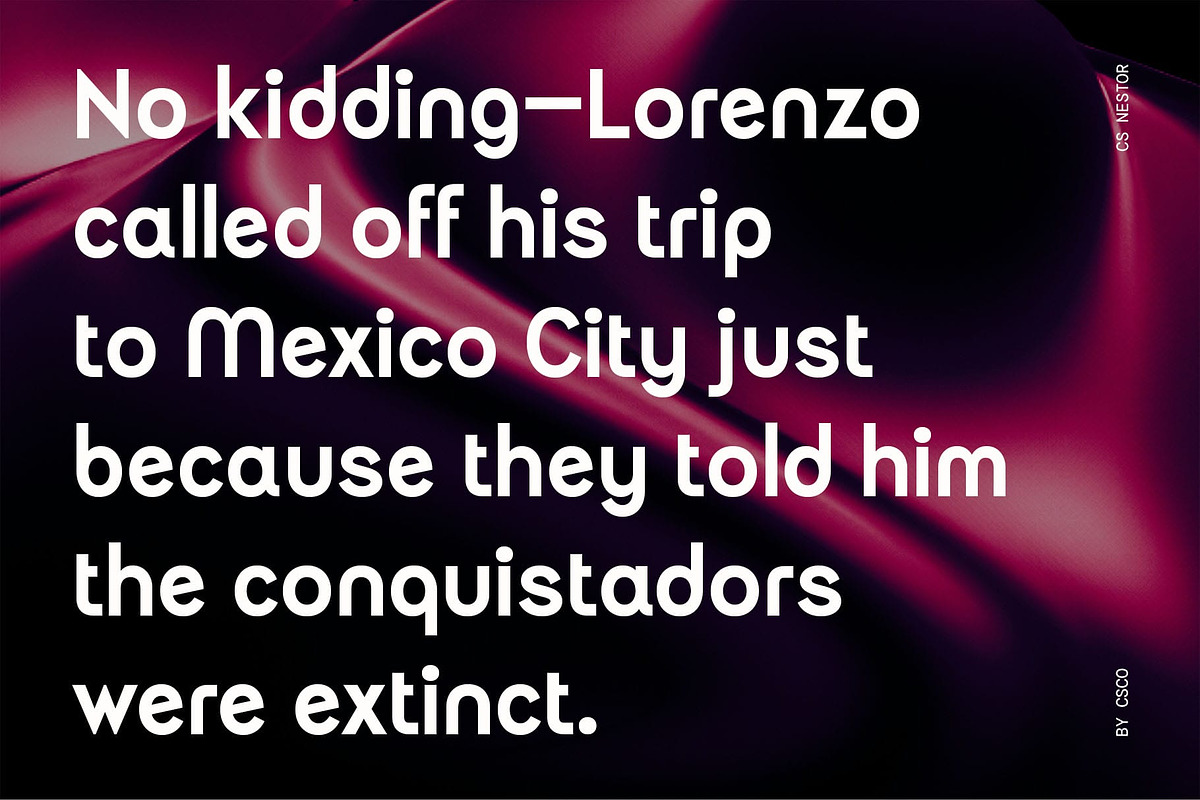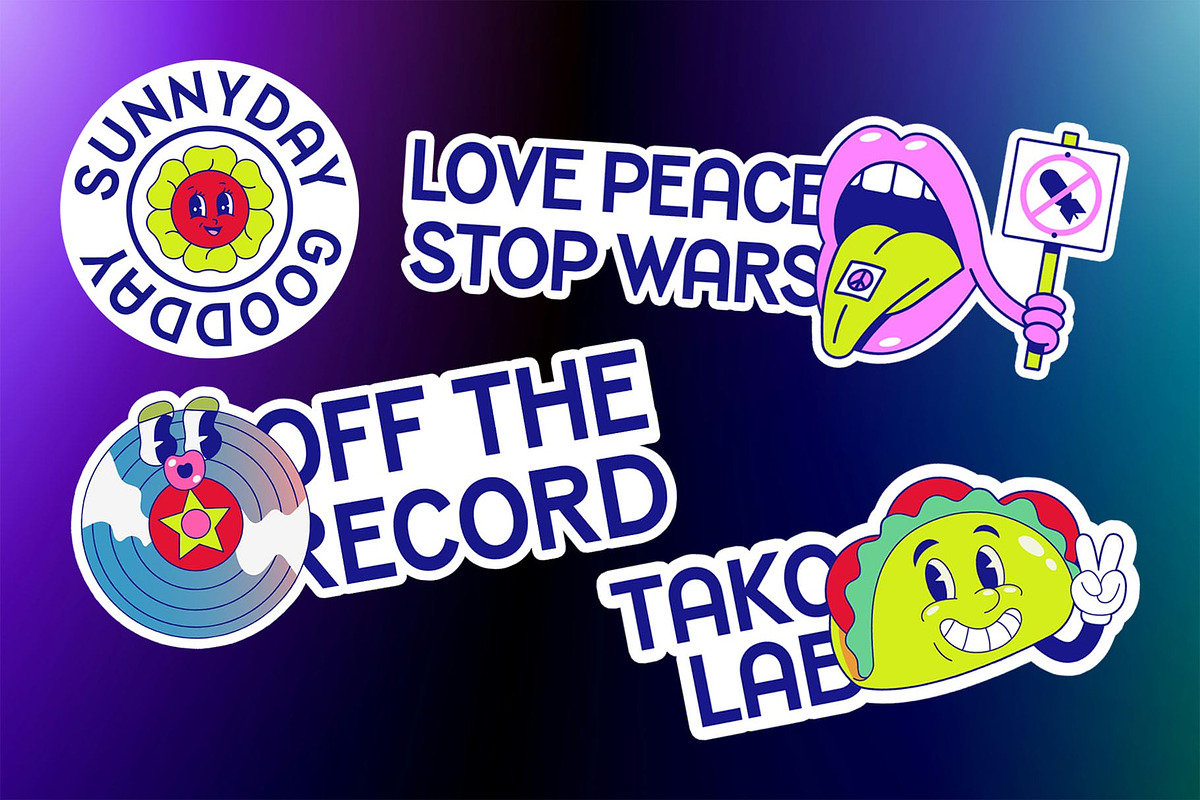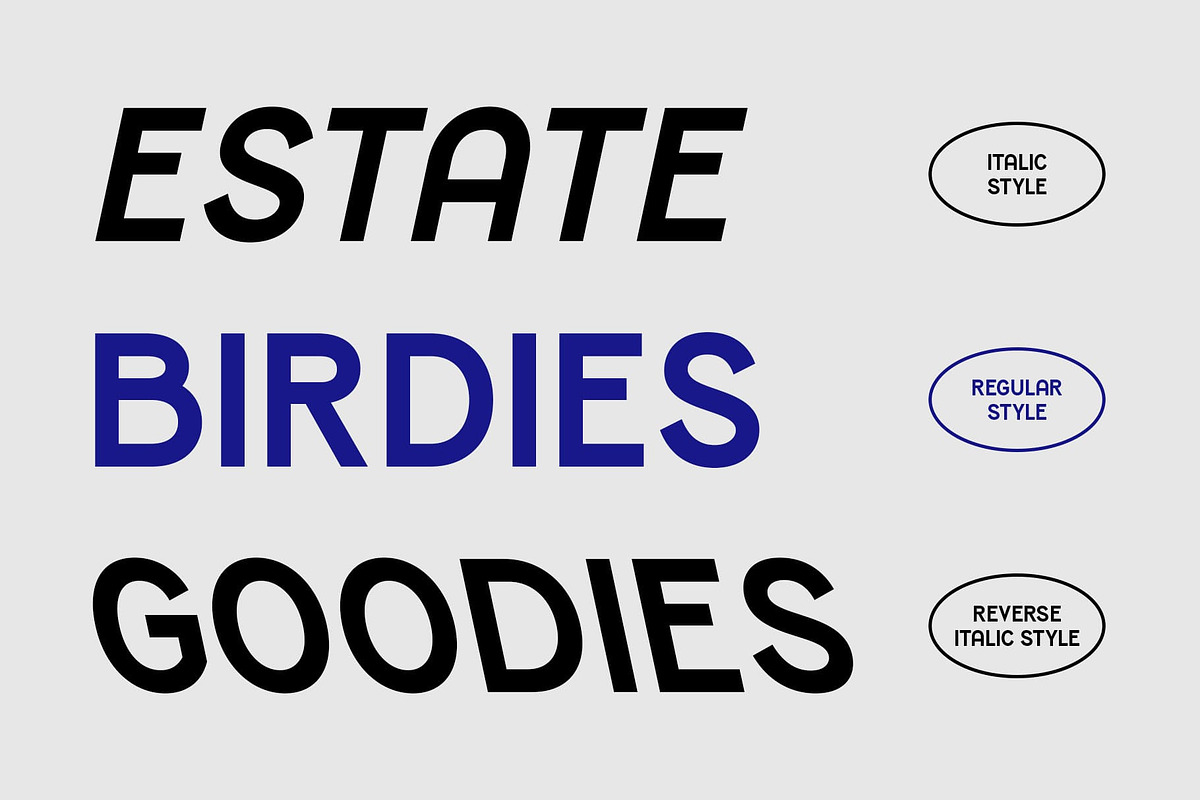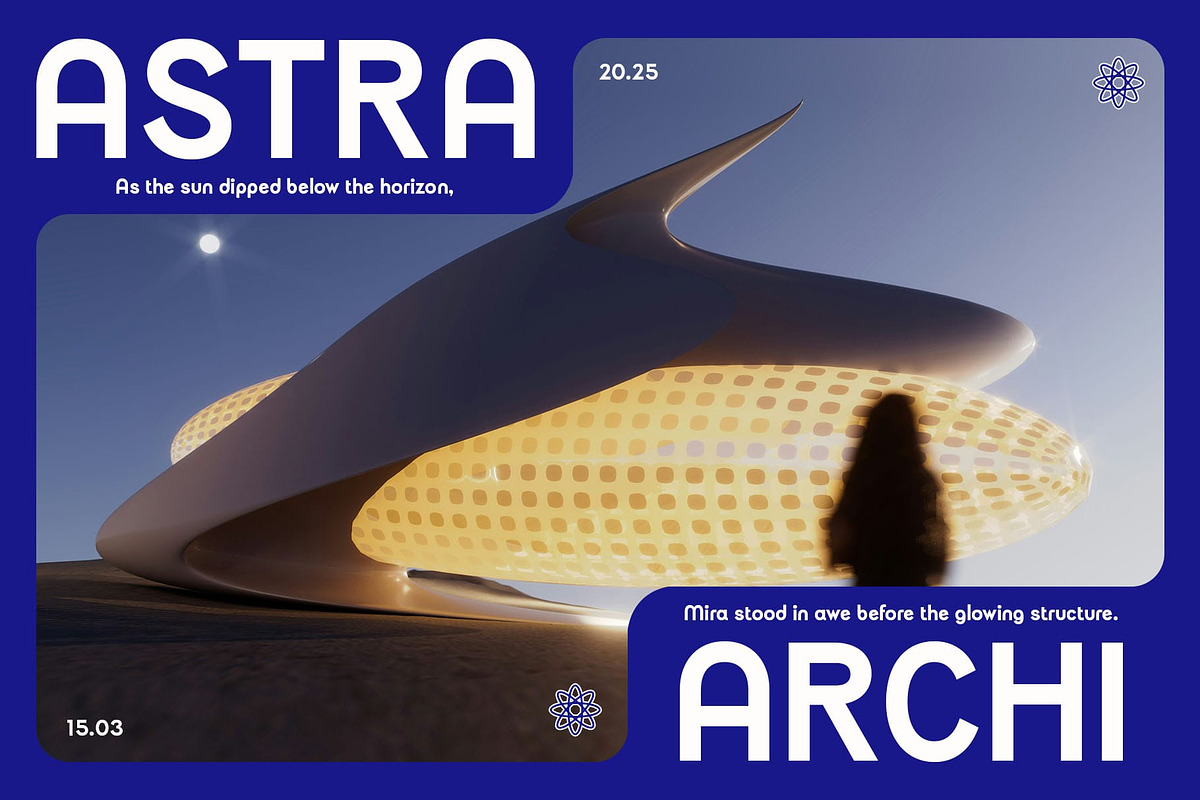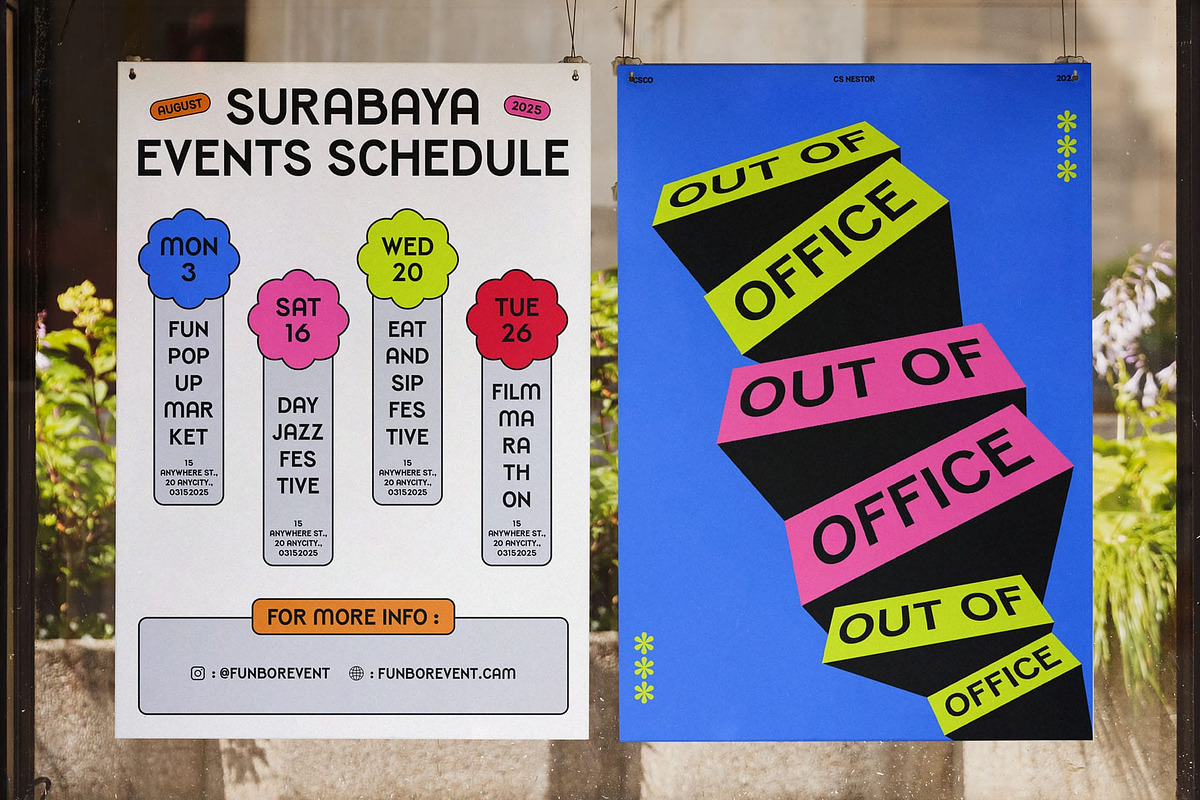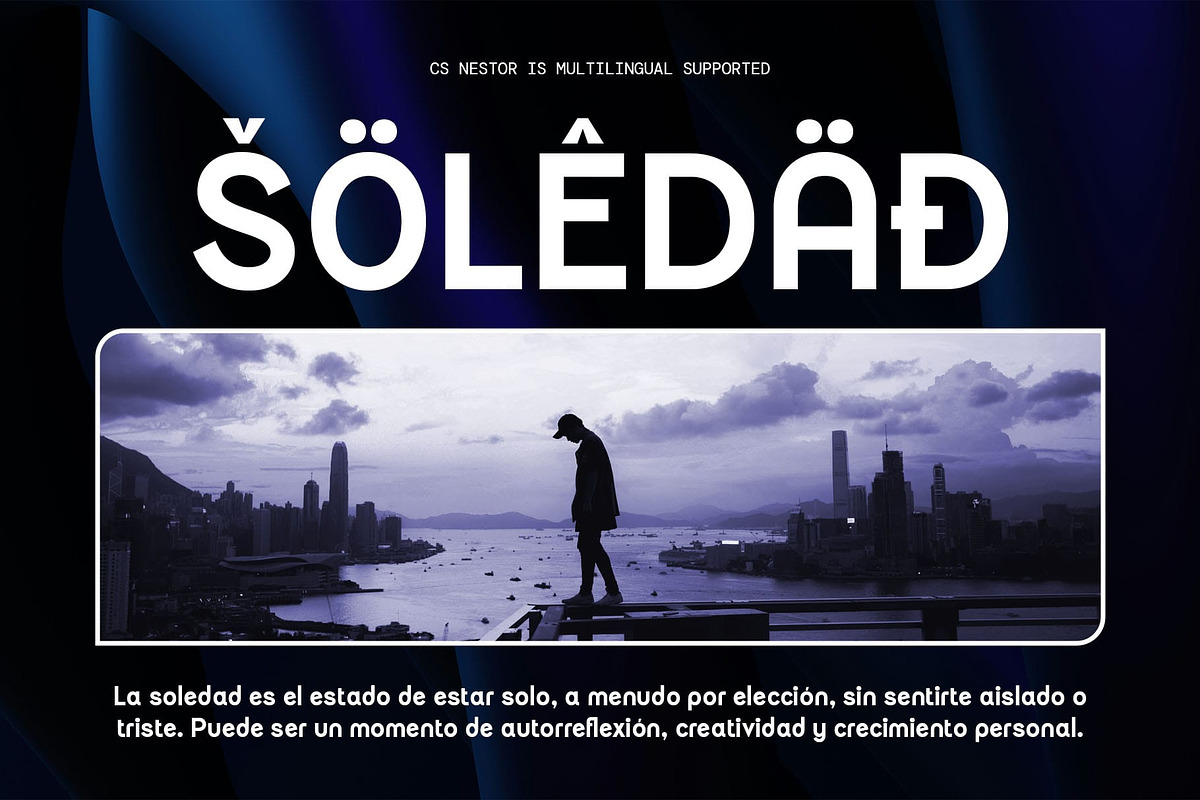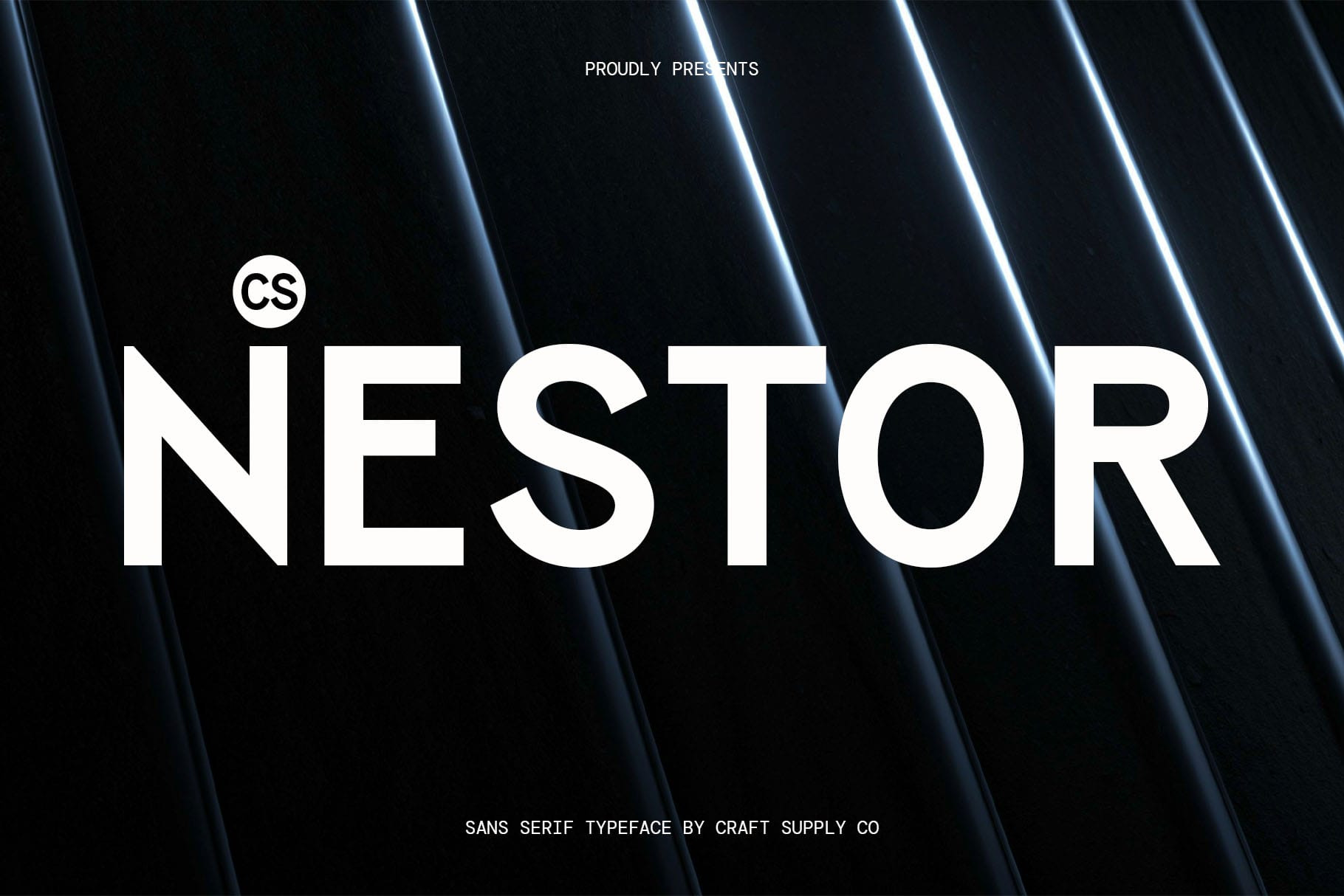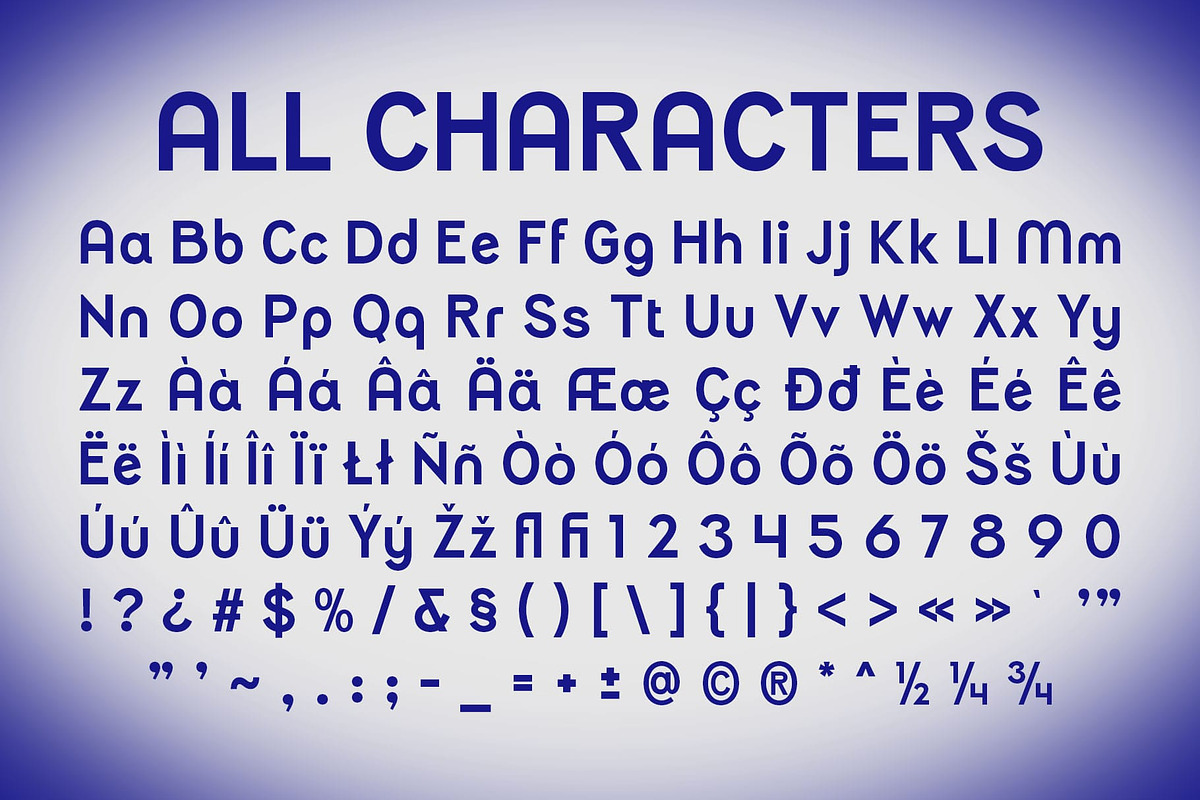
CS Nestor – Contemporary Font
CS Nestor – Contemporary Sans Serif Font
Sleek, Modern, and Geometric CS Nestor is a contemporary sans-serif font designed with precision, clarity, and versatility in mind. Featuring a clean, minimalist structure and geometric balance, this font delivers a refined yet highly functional aesthetic. With its sharp lines and smooth letterforms, CS Nestor is perfect for designers seeking a professional, futuristic, and stylish font that seamlessly integrates into modern projects.
Elegant and Highly Readable Featuring a harmonious balance between form and function, CS Nestor ensures high readability across all media. Its smooth letterforms and well-defined spacing make it suitable for editorials, branding, UI/UX, and corporate identities, delivering a modern and polished aesthetic.
Versatile for Various Design Needs With its neutral yet stylish personality, CS Nestor seamlessly adapts to a variety of projects, from luxury branding and product packaging to tech interfaces and contemporary advertising. Its subtle sophistication and timeless appeal make it a go-to font for designers looking to convey modernity and professionalism.
Perfect for Futuristic and Minimalist Aesthetics CS Nestor embodies the future of typography, ideal for brands and creatives who appreciate sleek, structured, and effortless design. Whether in corporate identities, digital platforms, or high-end marketing materials, this font enhances visual impact with elegance and precision.
- CS Nestor Regular
- CS Nestor Italic
- CS Nestor Reverse Italic